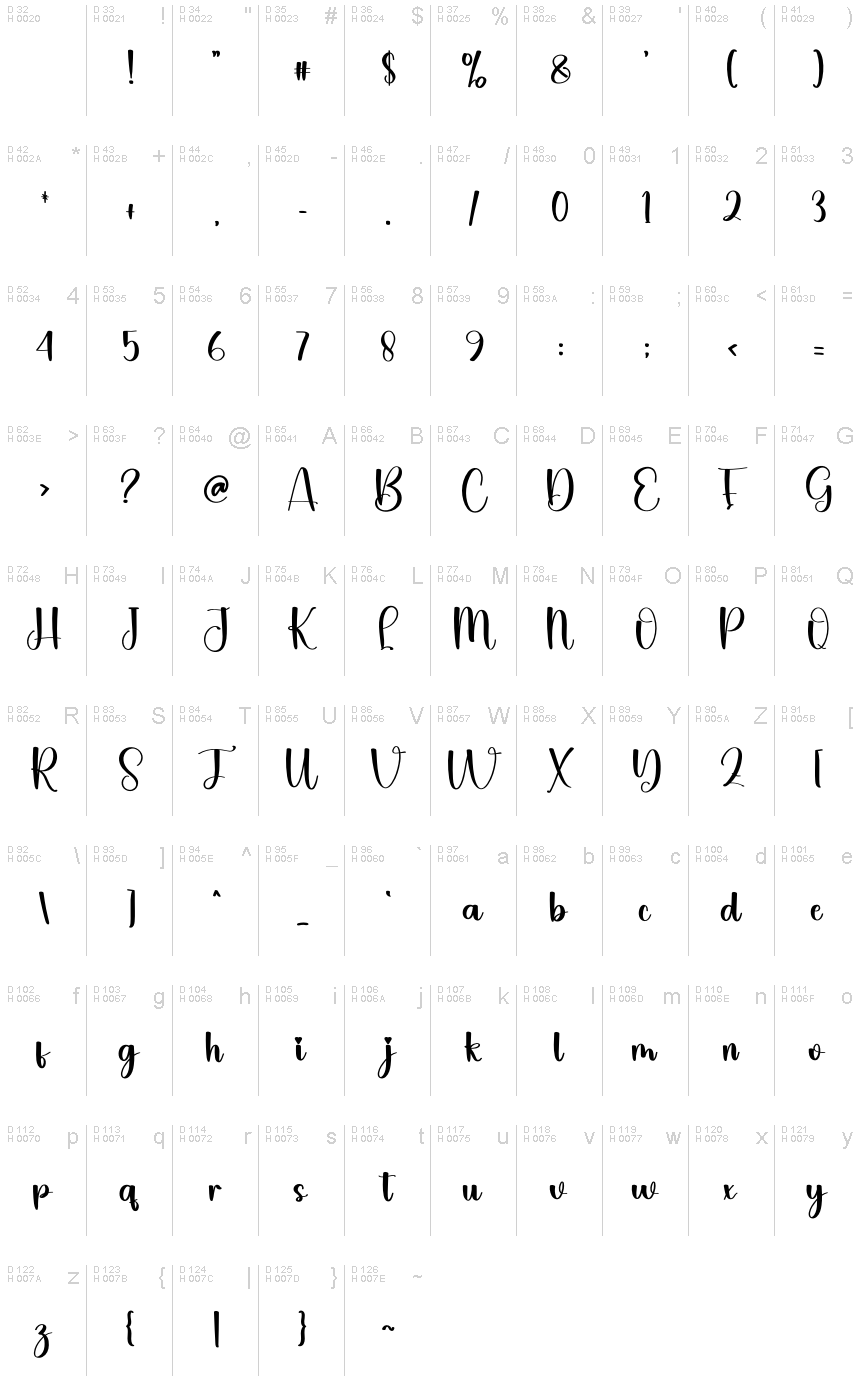
Swift
Swift, crafted by Inermedia Studio, brings the charm of authentic handwriting to your digital canvas. With its fluid strokes and playful embellishments, this font captures the spontaneity of ink on paper, making each character burst with personality. The casual elegance of Swift lends itself effortlessly to a variety of creative projects—invitations that need a personal touch, branding that desires an approachable feel, or even packaging that seeks to warm hearts.
Its aesthetic appeal lies in the balance between whimsy and readability; Swift's legible yet artistic nature makes it a versatile choice for designers aiming to infuse their work with a sense of intimacy and flair. Embrace the handwritten allure of Swift and watch your designs come alive with an organic energy that only a font with such character can provide.